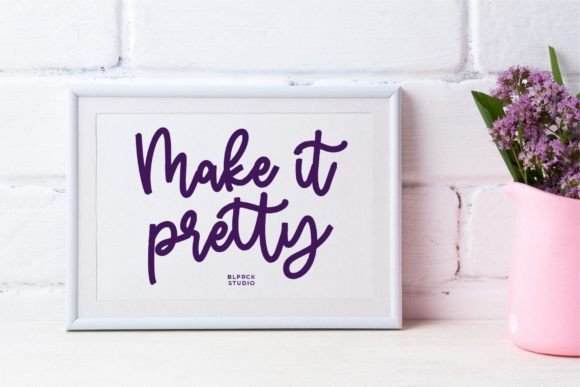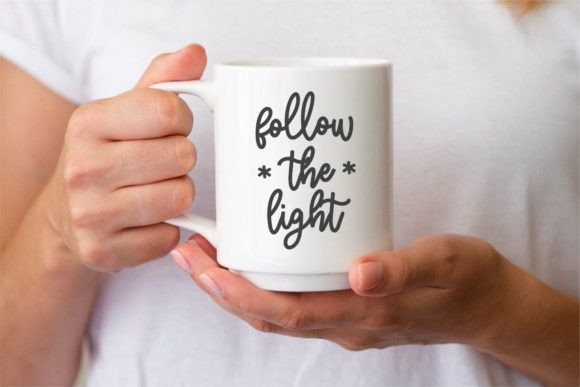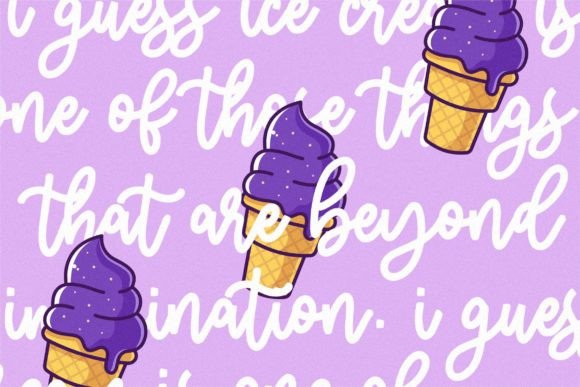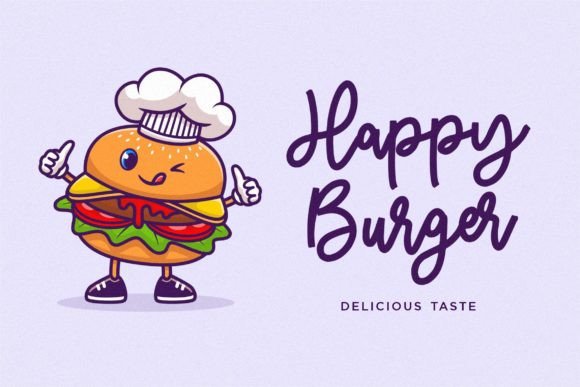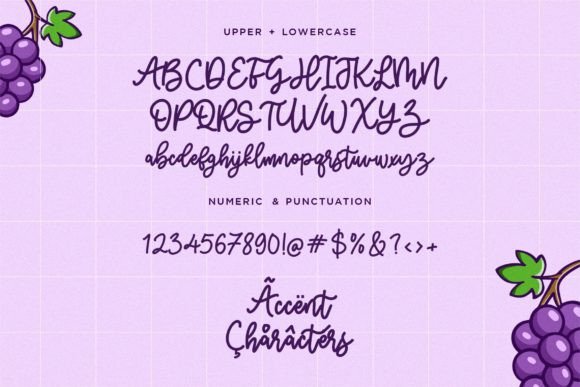
Grape Escape Font: Elevate Your Designs with Elegance and Sophistication
Are you on the hunt for a font that exudes modern elegance and timeless appeal? Look no further than the Grape Escape font, a stunning monoline calligraphy that’s clean, refined, and perfect for a wide range of design projects. With its smooth, effortless lines and understated sophistication, this font is sure to make a lasting impression on anyone who sees it.
What is Grape Escape Font?
Grape Escape is a beautifully crafted monoline calligraphy font that’s designed to bring a touch of elegance and sophistication to your designs. Its smooth, flowing lines and delicate curves make it perfect for creating stunning logos, branding materials, invitations, packaging, and more. Whether you’re a designer, crafter, or DIY enthusiast, this font is sure to become a go-to in your design arsenal.
Key Features of Grape Escape Font
- Clean and Elegant Design: Grape Escape boasts a clean and elegant design that’s perfect for creating modern and sophisticated designs.
- Monoline Calligraphy: This font features a beautiful monoline calligraphy style that’s both refined and understated.
- Versatile and Flexible: Grape Escape is incredibly versatile and can be used for a wide range of design projects, from logos and branding to invitations and packaging.
- Effortless Lines: The smooth, effortless lines of this font make it perfect for creating designs that exude elegance and sophistication.
- Timeless Appeal: Despite its modern look, Grape Escape has a timeless appeal that’s sure to stand the test of time.
Why Choose Grape Escape Font?
So why choose Grape Escape font for your design projects? Here are just a few reasons why this font stands out from the crowd:
- Unique and Eye-Catching: Grape Escape is a unique and eye-catching font that’s sure to grab attention and make your designs stand out.
- Easy to Read: Despite its elegant and refined design, Grape Escape is incredibly easy to read, making it perfect for use in body text and other applications.
- Customizable: This font is highly customizable, allowing you to adjust the size, color, and style to suit your design needs.
- Support for Multiple Languages: Grape Escape supports multiple languages, making it a great choice for designers and crafters who work with international clients.
Design Project Ideas Using Grape Escape Font
Grape Escape is an incredibly versatile font that can be used for a wide range of design projects. Here are a few ideas to get you started:
- Logos and Branding: Use Grape Escape to create stunning logos and branding materials that exude elegance and sophistication.
- Invitations and Stationery: This font is perfect for creating beautiful invitations, stationery, and other paper goods.
- Packaging Design: Grape Escape is a great choice for packaging design, adding a touch of elegance and refinement to your product packaging.
- Web Design: Use this font to create stunning website headers, titles, and other design elements that showcase your brand’s personality.
Tips for Using Grape Escape Font
Here are a few tips for using Grape Escape font in your design projects:
- Pair with Bold Fonts: Pair Grape Escape with bold fonts for a striking contrast that adds visual interest to your designs.
- Use for Headings and Titles: Grape Escape is perfect for use in headings and titles, adding a touch of elegance and sophistication to your designs.
In conclusion, Grape Escape font is a stunning monoline calligraphy that’s perfect for designers and crafters who want to add a touch of elegance and sophistication to their designs. With its smooth, effortless lines and understated sophistication, this font is sure to make a lasting impression on anyone who sees it. So why wait? Download Grape Escape font today and start elevating your designs to new heights!